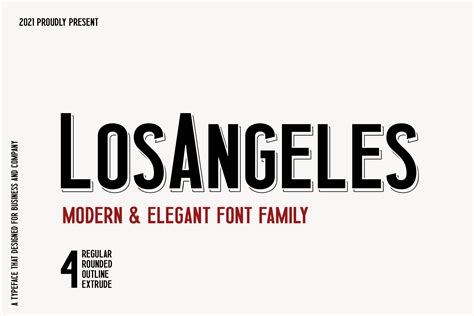
Typography plays a crucial role in design, setting the tone and enhancing the overall aesthetic of any project. Among the myriad of fonts available, the Los Angeles Font stands out as a versatile and stylish choice. This font, inspired by the vibrant and eclectic spirit of Los Angeles, offers a unique blend of modernity and retro charm. Whether you're designing a logo, creating a website, or crafting a print piece, the Los Angeles Font can add a touch of California cool to your work.
Understanding the Los Angeles Font
The Los Angeles Font is characterized by its clean lines and bold, geometric shapes. It draws inspiration from the Art Deco movement of the 1920s and 1930s, which was prevalent in the architecture and design of Los Angeles during that era. This font is not just about aesthetics; it also conveys a sense of history and cultural richness. Its versatility makes it suitable for a wide range of applications, from modern digital designs to vintage-inspired prints.
Key Features of the Los Angeles Font
The Los Angeles Font boasts several key features that make it a favorite among designers:
- Bold and Geometric Design: The font's strong, geometric shapes give it a modern and impactful look.
- Versatility: It can be used in various design projects, from logos and branding to web design and print media.
- Retro Charm: The font's Art Deco influences add a nostalgic touch, making it perfect for vintage-inspired designs.
- Readability: Despite its bold design, the Los Angeles Font remains highly readable, ensuring that your message is clear and legible.
Applications of the Los Angeles Font
The Los Angeles Font is incredibly versatile and can be used in a variety of design projects. Here are some popular applications:
- Logo Design: Its bold and distinctive style makes it ideal for creating memorable logos.
- Branding: The font's retro charm can add a unique touch to branding materials, helping your brand stand out.
- Web Design: Use the Los Angeles Font for headings, subheadings, and other prominent text elements on your website.
- Print Media: From posters and flyers to brochures and business cards, this font can enhance the visual appeal of your print materials.
- Social Media Graphics: Create eye-catching graphics for social media platforms using the Los Angeles Font to grab attention and convey your message effectively.
Designing with the Los Angeles Font
When incorporating the Los Angeles Font into your design projects, consider the following tips to maximize its impact:
- Pairing with Other Fonts: The Los Angeles Font pairs well with both serif and sans-serif fonts. For a modern look, pair it with a clean, sans-serif font. For a more traditional feel, pair it with a classic serif font.
- Color Schemes: Choose color schemes that complement the font's bold and geometric design. Bright, vibrant colors can enhance its retro charm, while muted tones can create a more sophisticated look.
- Spacing and Alignment: Ensure proper spacing and alignment to maintain readability. The font's bold design can be overwhelming if not used judiciously.
- Consistency: Use the Los Angeles Font consistently across your design elements to create a cohesive and professional look.
Here is an example of how the Los Angeles Font can be paired with other fonts and color schemes:
| Font Pairing | Color Scheme | Usage |
| Los Angeles Font + Helvetica | Bright and Vibrant | Modern Web Design |
| Los Angeles Font + Times New Roman | Muted and Sophisticated | Traditional Print Media |
| Los Angeles Font + Arial | Neutral and Clean | Corporate Branding |
Inspiration and Examples
To get a better understanding of how the Los Angeles Font can be used in various design projects, let's explore some inspiring examples:
This logo design showcases the Los Angeles Font's bold and geometric style, making it stand out with a modern and impactful look. The font's clean lines and distinctive shapes create a memorable and recognizable logo.
In this web design example, the Los Angeles Font is used for headings and subheadings, adding a touch of retro charm to the website. The font's bold design ensures that the text is highly readable, even on smaller screens.
This print media example demonstrates how the Los Angeles Font can enhance the visual appeal of posters and flyers. The font's Art Deco influences add a nostalgic touch, making the design more engaging and memorable.
Social media graphics benefit from the Los Angeles Font's bold and distinctive style. This example shows how the font can be used to create eye-catching graphics that grab attention and convey the message effectively.